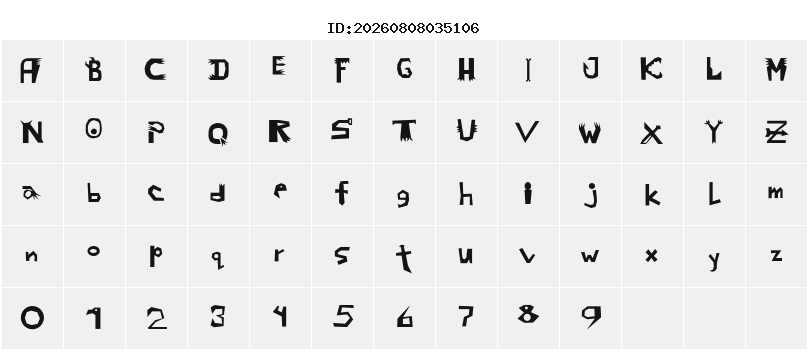
ProbbariusC Preview
• Font Name: ProbbariusC
• Description: Designed in 1996 by Illarion Gordon. For use in advertising and display typography.
About ProbbariusC.ttf